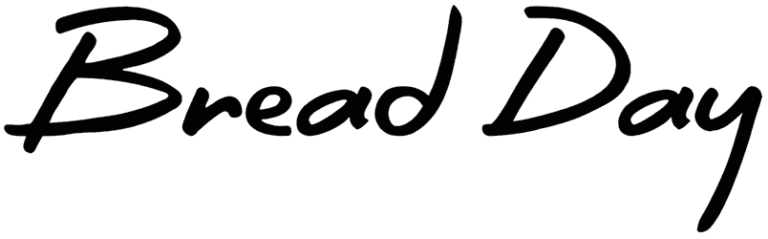
Peperoni Font
Peperoni is one of those free fonts that can stimulate your creativity and does not limit it. This handwritten font has a distinctive and authentic feel that works very well for new brands and will also attract the trust of the audience on the packaging.
So if you’re looking for a personal touch to breathe new life into your creative writing, keep this bullet journal font in your collection.